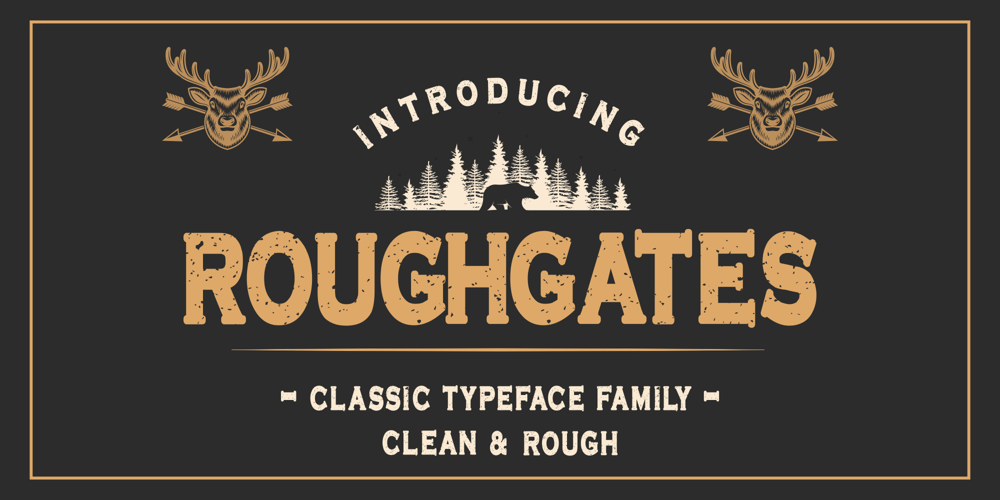
Roughgates Font Family was designed by SU KASIH and published by Mozatype. Roughgates contains 2 styles and family package options. Roughgates Display Font is a bold and chunky lettered display typeface.It’s a versatile serif typeface that gives a vintage aesthetic.Roughgates has multi-language support with western characters included.Roughgates include 2 font , clean version and rough versionAdd this font to your creative ideas and notice how it will make them stand out!What’s Included :– Works on PC & Mac– Easy to use ( Installations )– Easy Convert to webfont– Compabilty Windows, Apple, Linux, Cricut, Silhouette and Other cutting machinesThanks for downloading, and I hope you enjoy it!